Type. A Visual History of Typefaces and Graphic Styles, Vol. 1
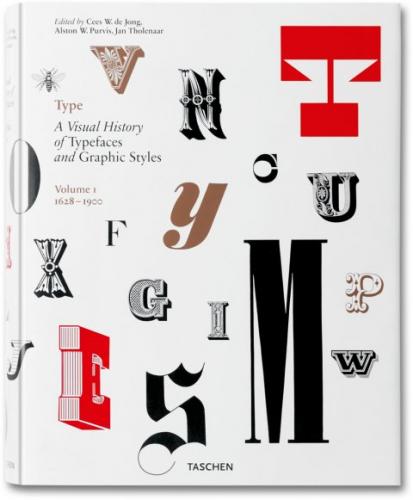
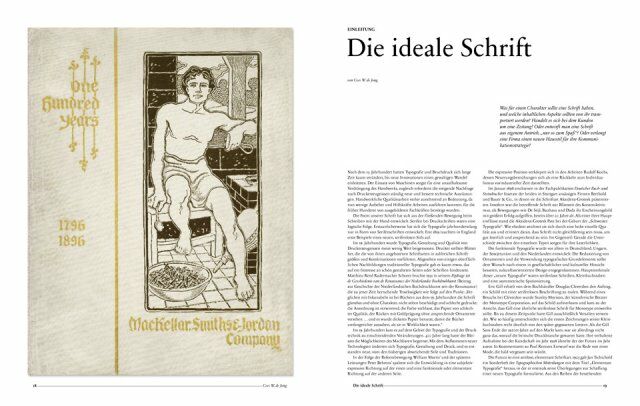
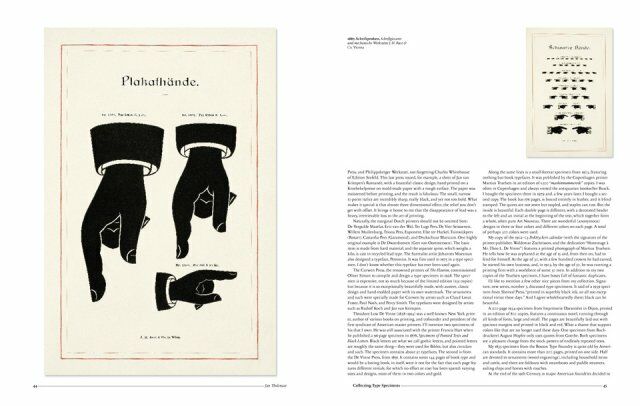
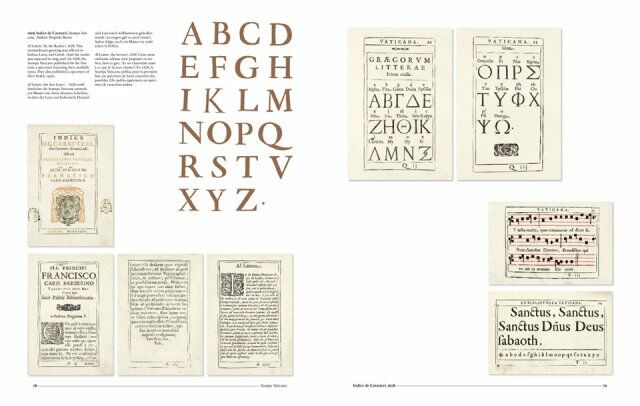
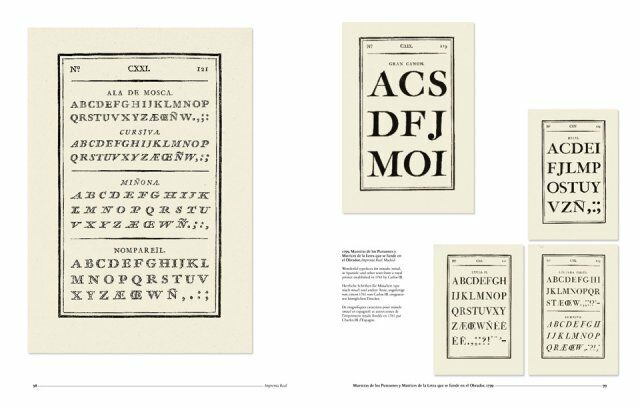
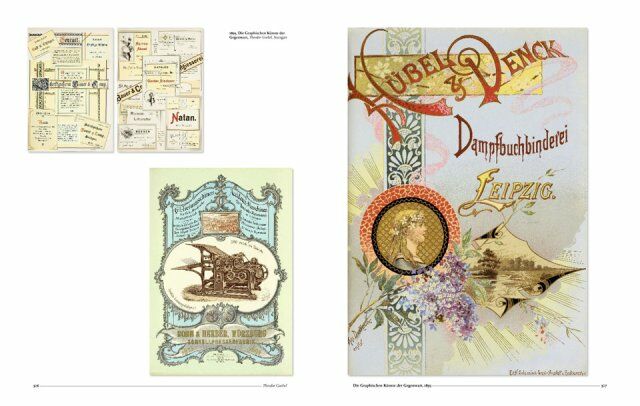
Faces And Characters Of Distinction.
A visual history of fonts and graphic styles, volume 1: 1628–1900
This exuberant selection of typographic fonts and styles traces the modern evolution of the printed letter, reproducing pages from exquisitely designed catalogs showing type specimens in roman, italic, bold, semi-bold, narrow, and broad fonts. Also included are borders, ornaments, initial letters and decorations, and many spectacular examples of their use. Victorian fonts, spectacular in their complexity, are accorded a prominent place. In addition, examples from lithography and letters by inscription carvers and calligraphers are also included and described.
Featuring works by type designers William Caslon, Fritz Helmuth Ehmcke, Peter Behrens, Rudolf Koch, Eric Gill, Jan van Krimpen, Paul Renner, Jan Tschichold, A. M. Cassandre, Aldo Novarese, and Adrian Frutiger.
To accommodate the vast amount of material, we have divided the subject into two volumes. This, the first volume, covers pre–20th Century typeface specimens, with texts by editor Cees de Jong and collector Jan Tholenaar.